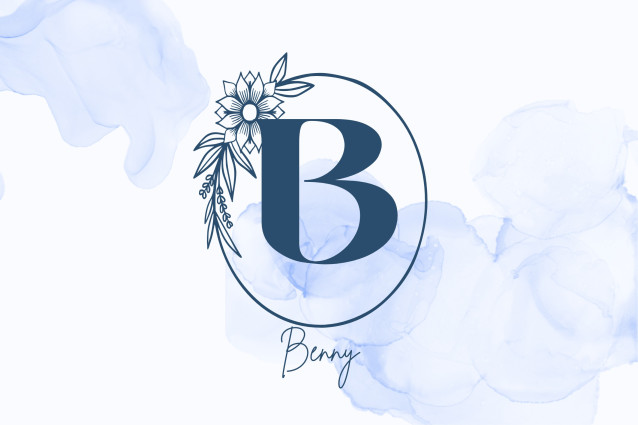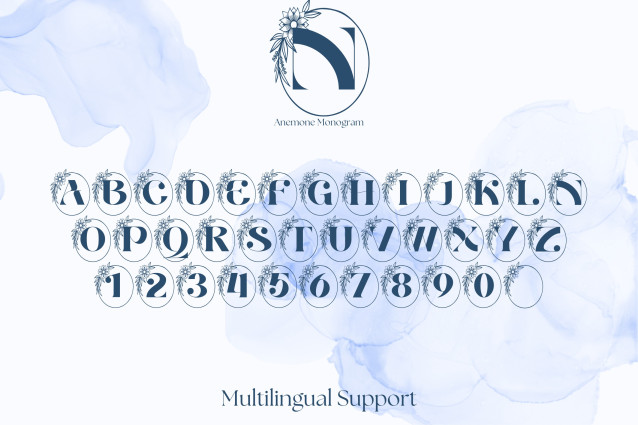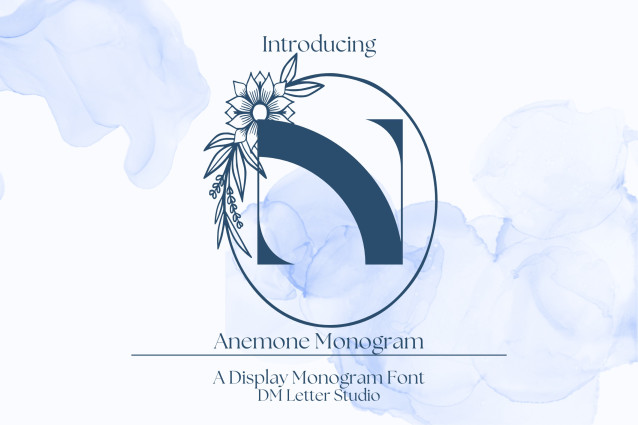
Anemone Monogram Font
Anemone Monogram Font is a beautifully bold monogram font inspired by the natural elegance of anemone flowers. Each letter is adorned with detailed floral elements, blending sophistication and creativity in a classic serif structure. Ideal for wedding stationery, personalized gifts, logo design, branding, and seasonal crafts, this monogram font brings a romantic and organic touch to any project.